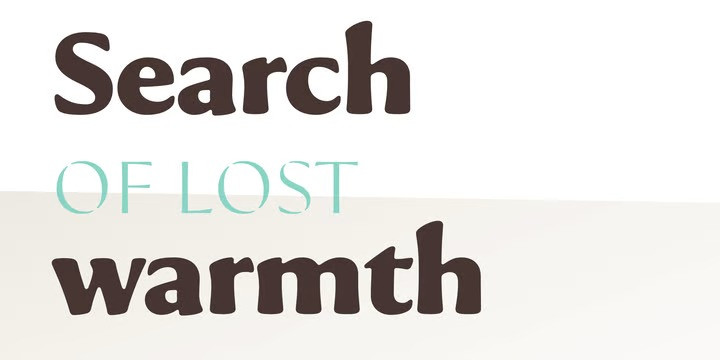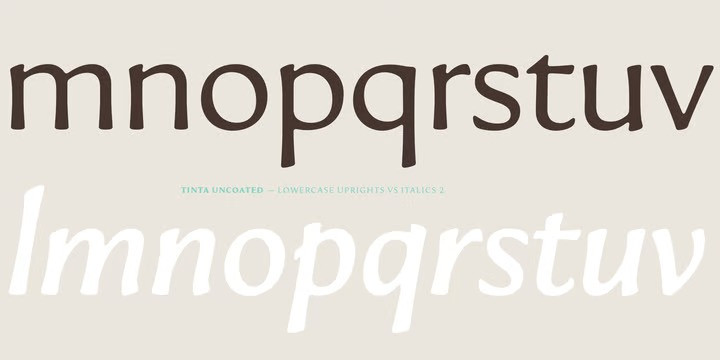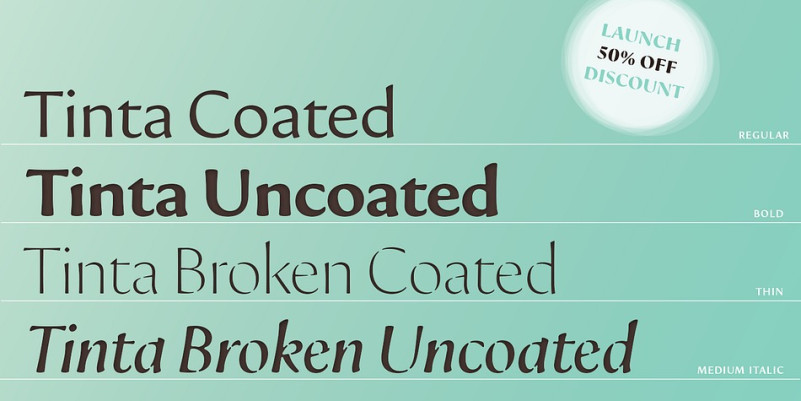
Tinta Uncoated Font
The Tinta Sans Serif typeface is a rebellion against sterility and cold perfection. In a time dominated by supersharp offset printing and screen typography, Tipografies embarks on a search of lost warmth. The goal is to recreate the mood of Renaissance printmaking. Tinta utilizes variable font technology to bring back the vulnerable quality of letterforms.
A dynamic sans of classical proportions, Tinta is characterized by organic forms with curving contours and flared endings. The serifless roman is complemented by an animated italic. Rather than engaging in a digital copy of the types cut by Jenson or Griffo, Tinta is concerned with capturing the spirit found in works from the 15th century. Named after the Catalan word for ink, Tinta explores the diverse manifestations of the printed letter. Studying old prints, it became evident that their appeal is tied to the imperfect impression. The look and feel of the letters change, depending on the amount of ink and pressure as well as on the paper quality.